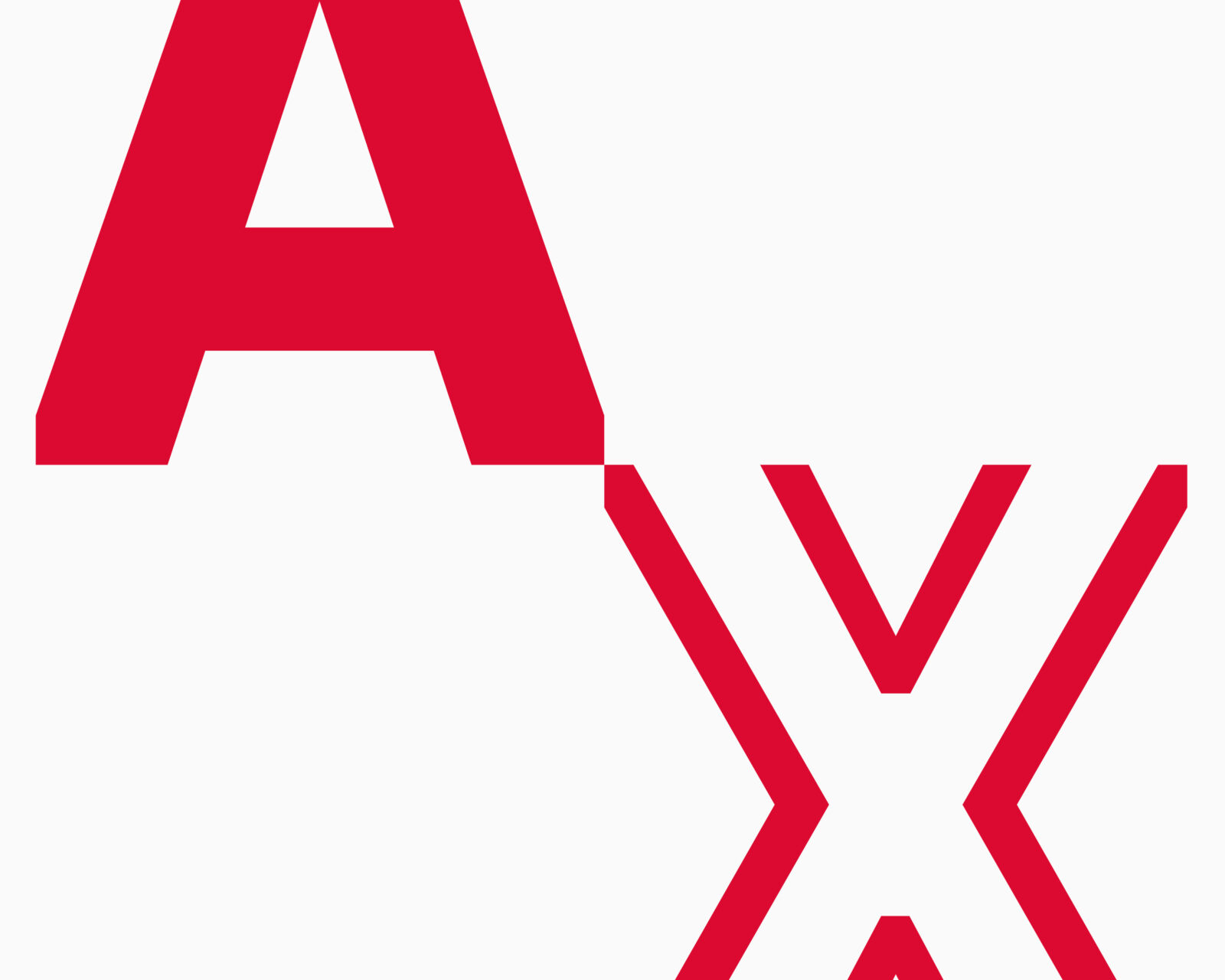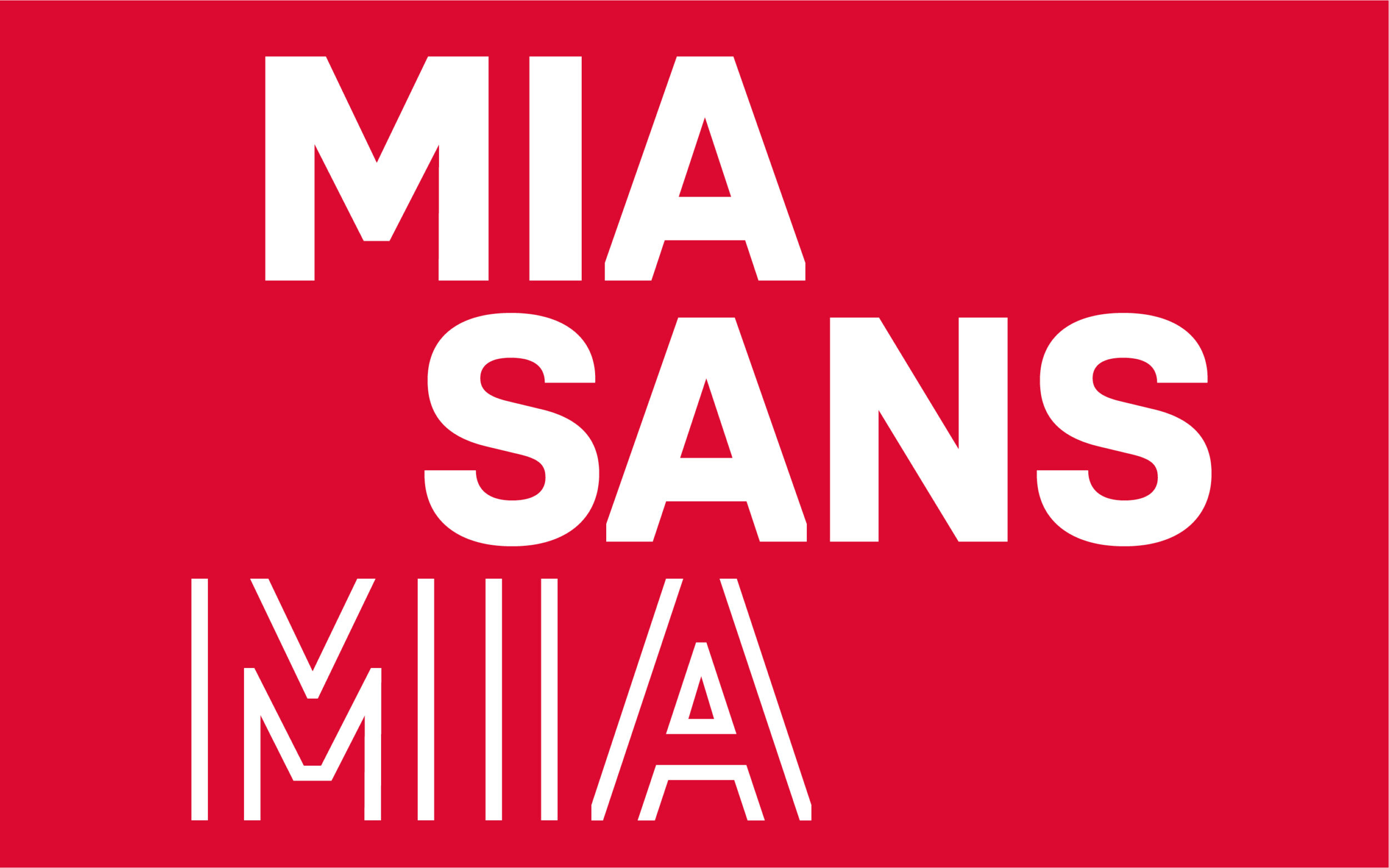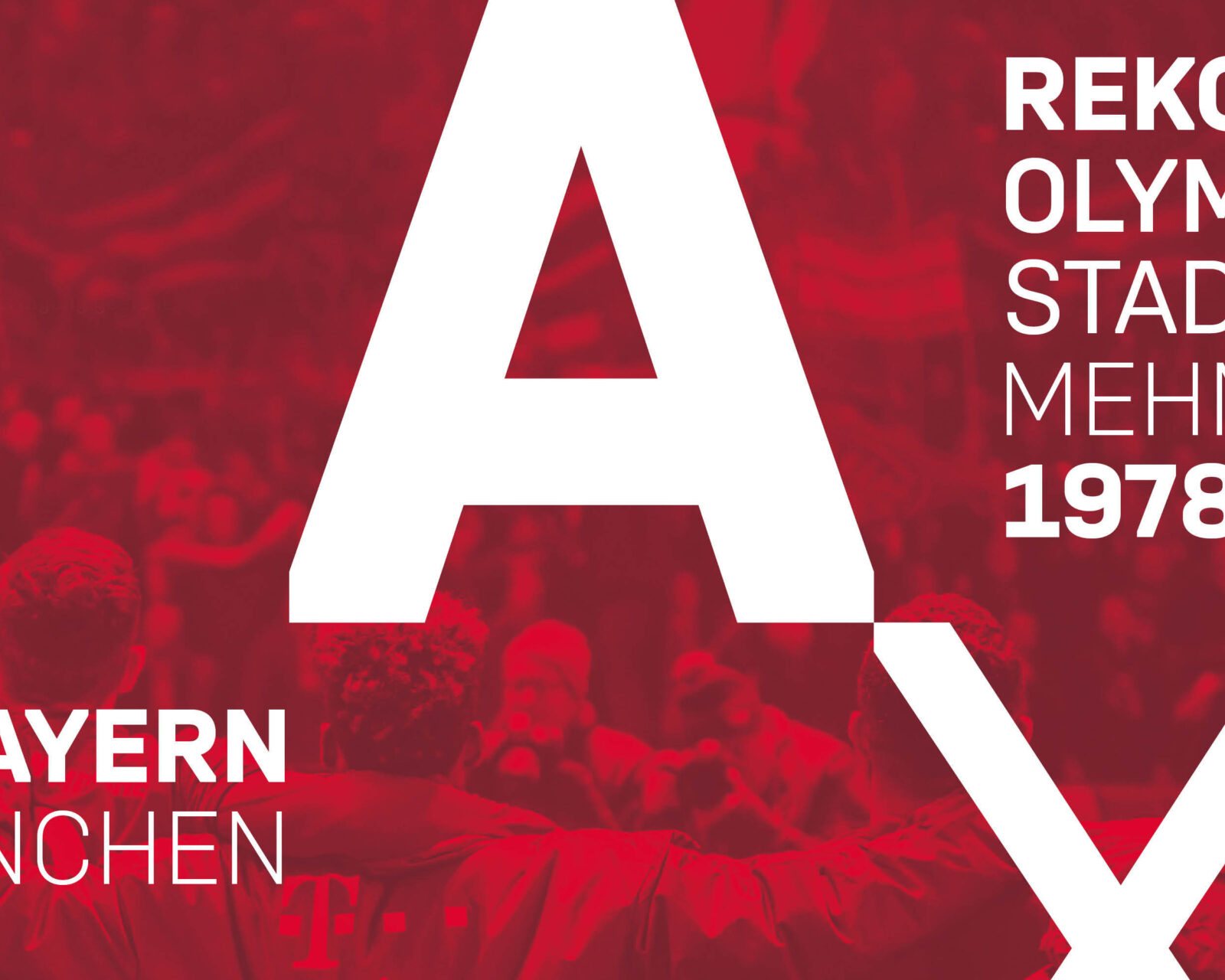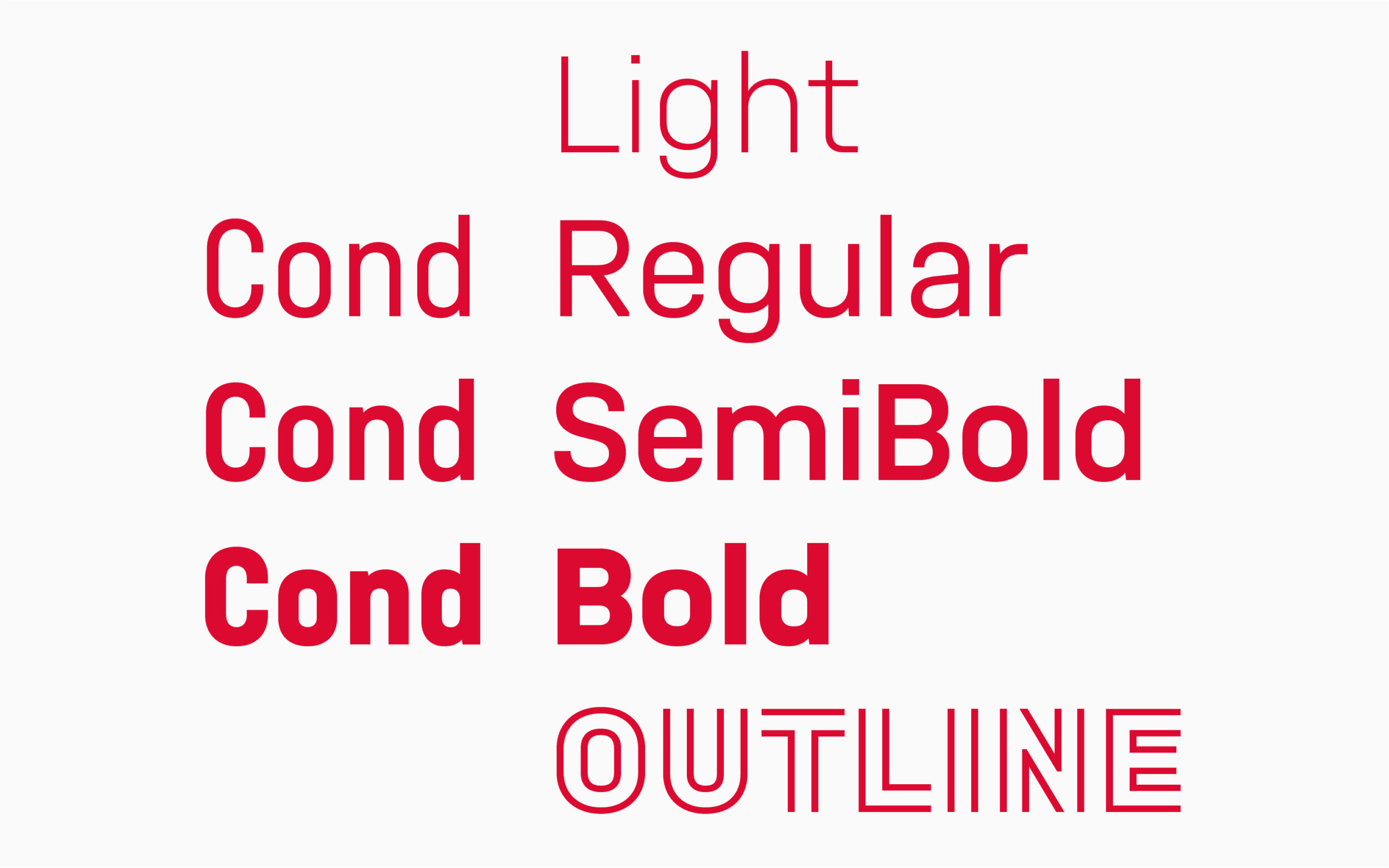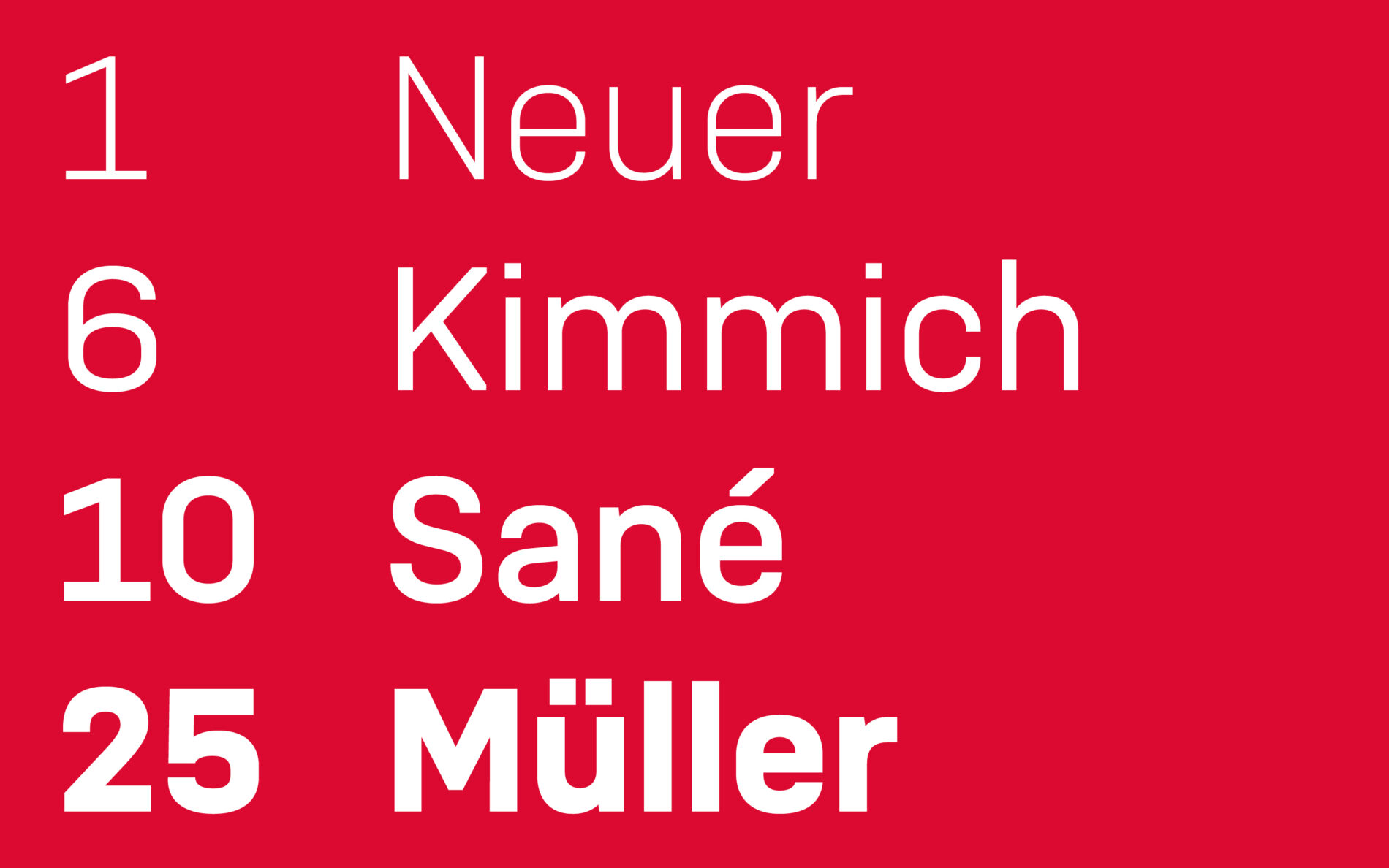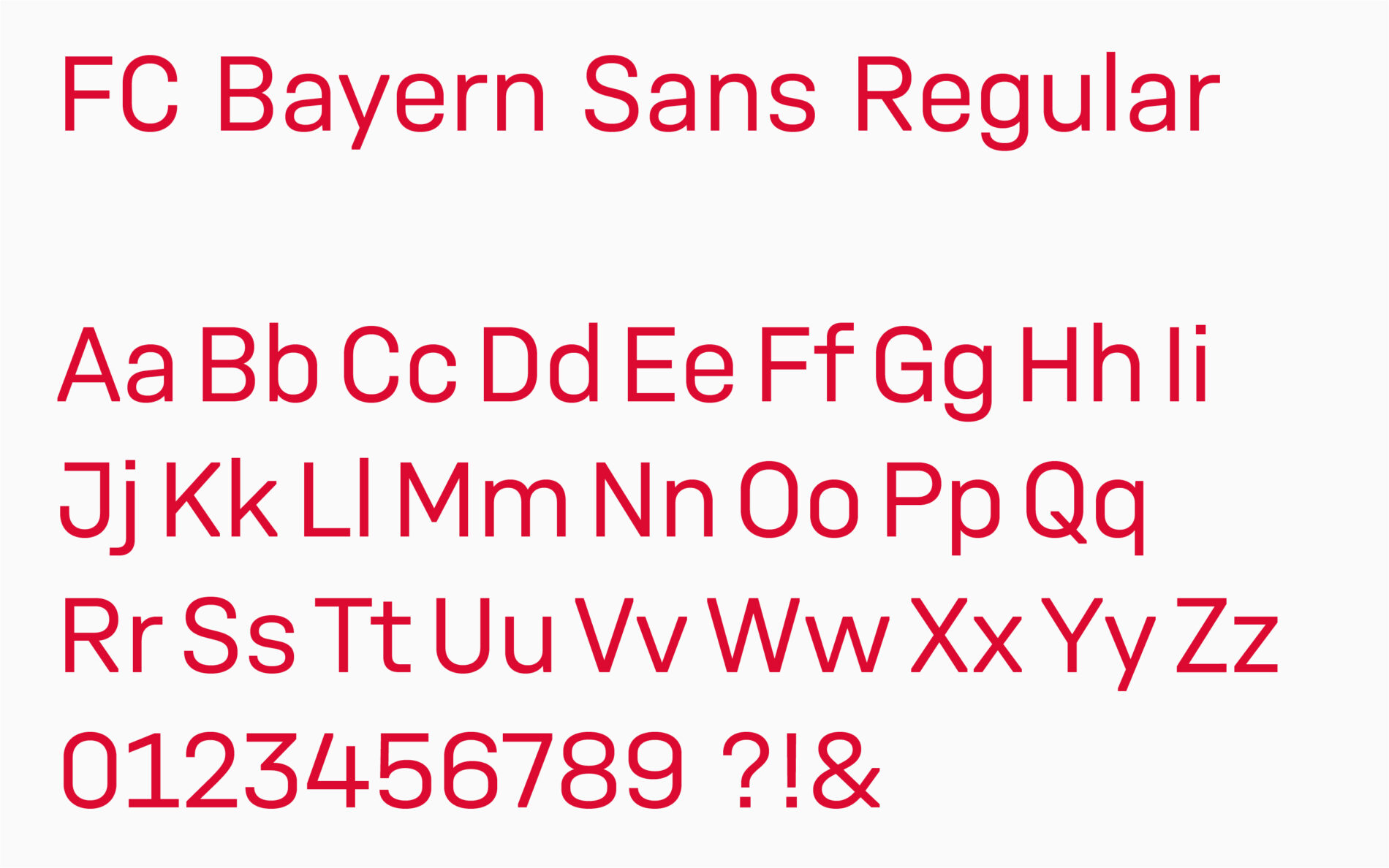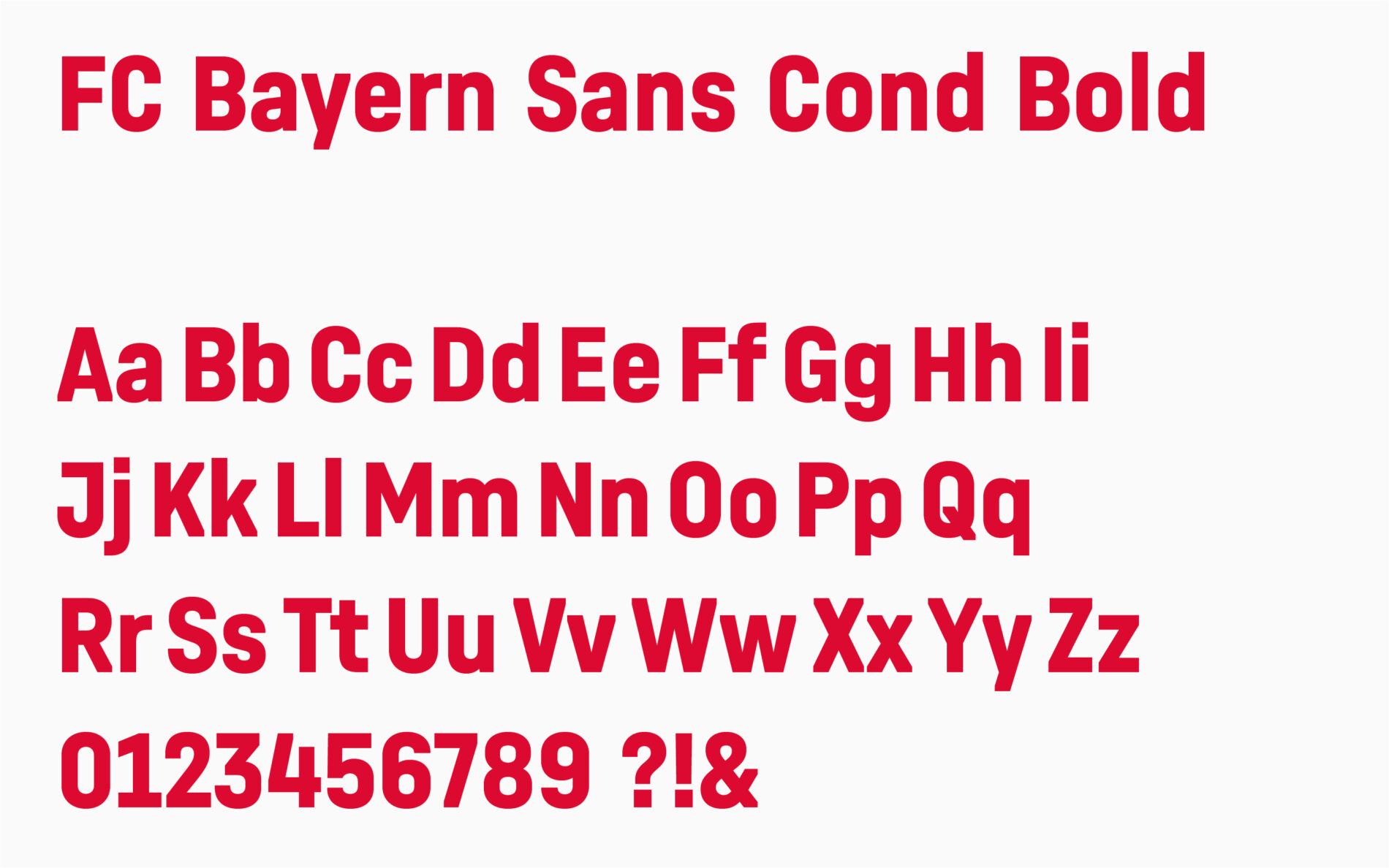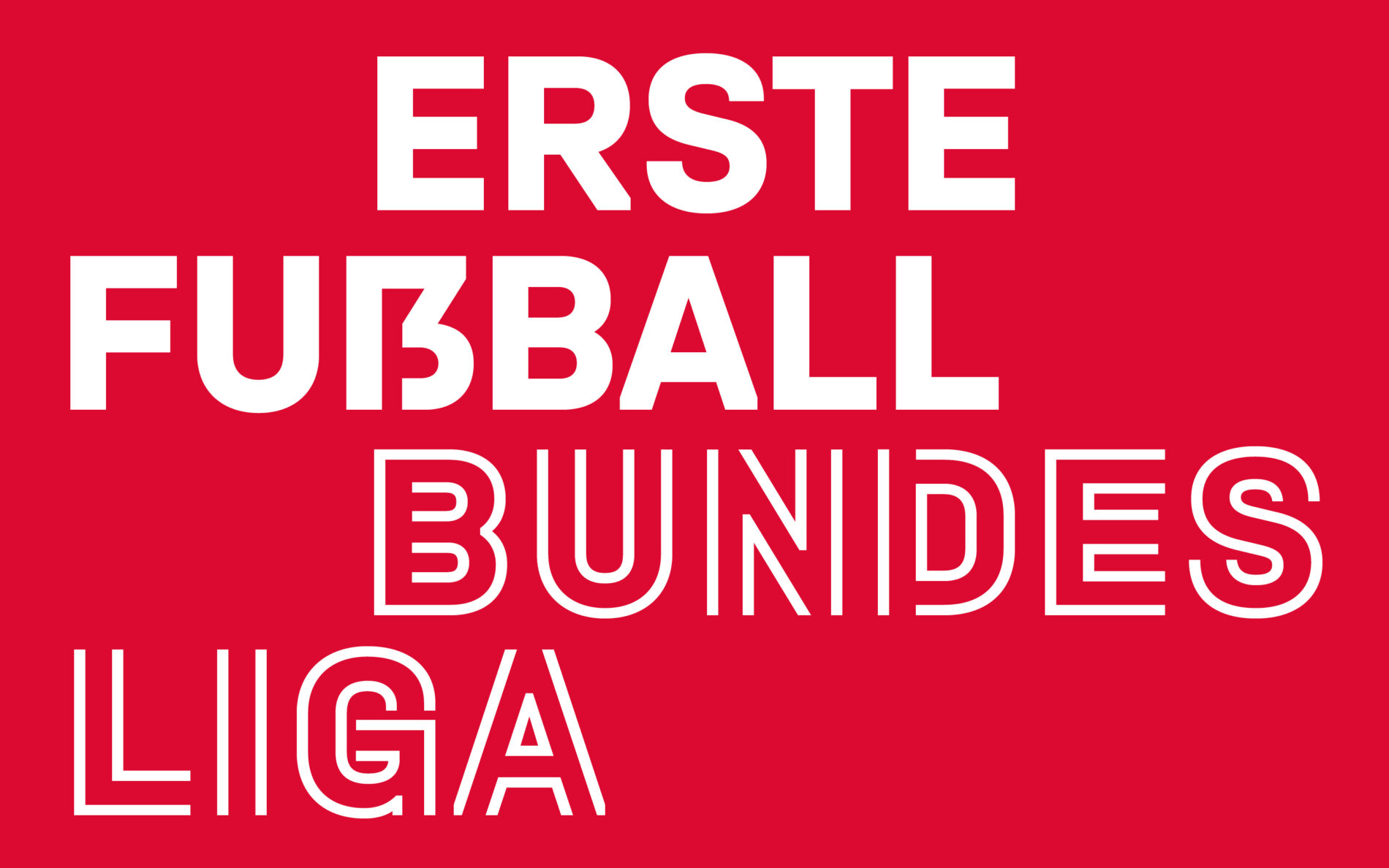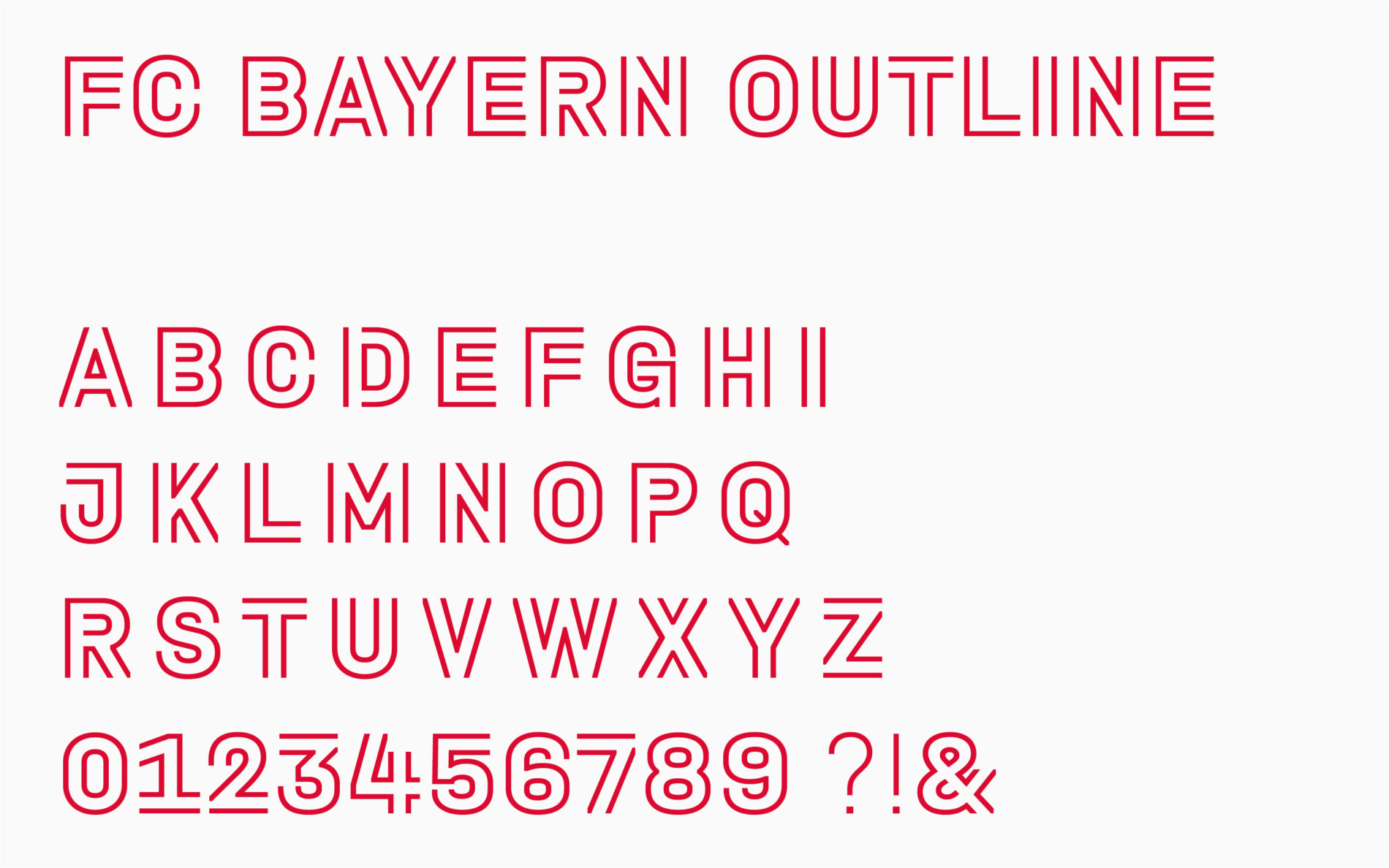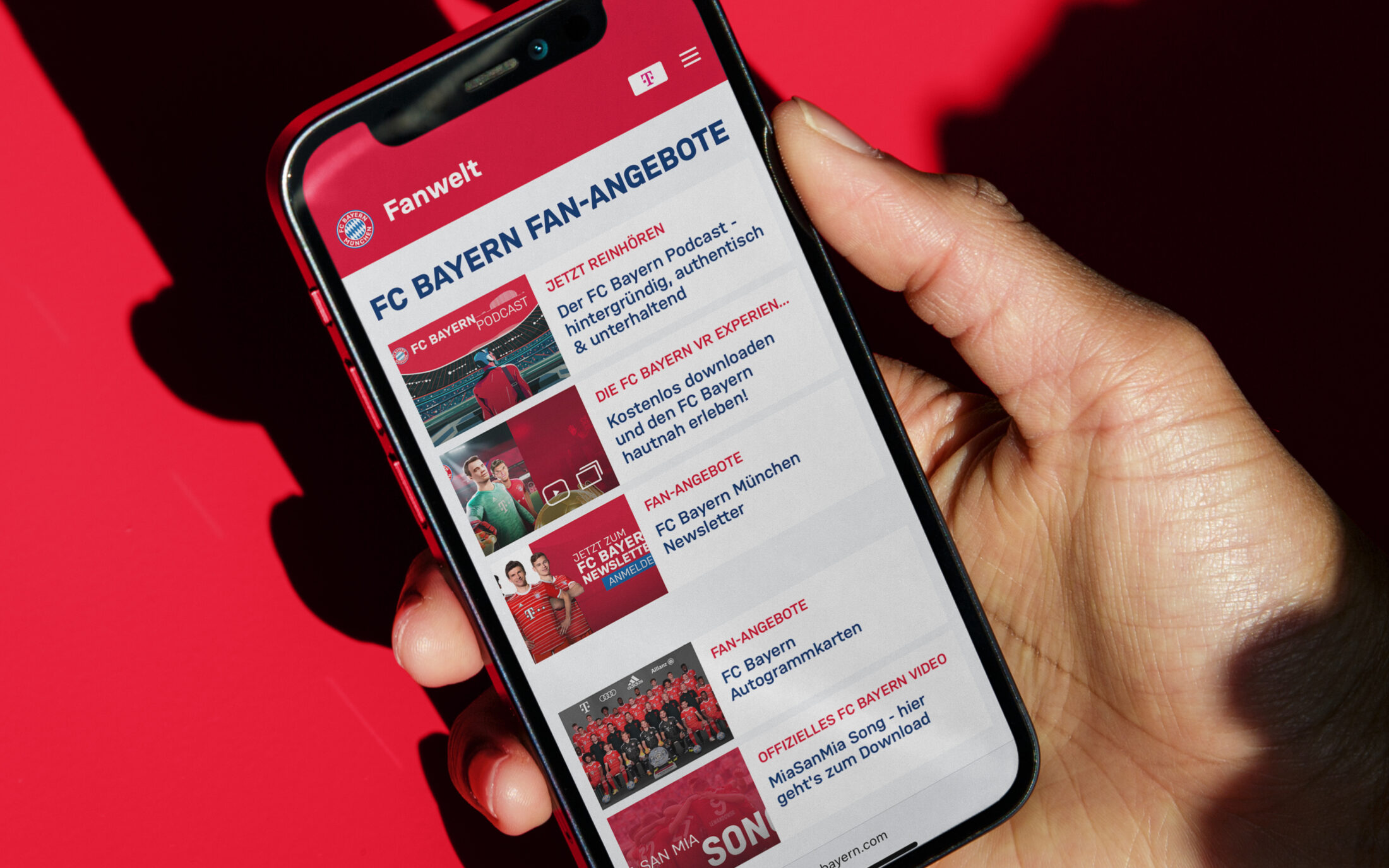
FC Bayern Sans
Interbrand Cologne had a clear vision for modernising the look of one of the most famous football clubs. We helped to complete the new brand identity for FC Bayern München with custom type.
Seeking to inspire with success, FC Bayern München has always defined itself through its traditional roots and international ambitions. Their guiding principle “tradition meets the modern era”, as Head of Brand Management Philipp Mokrohs points out, creates “two worlds that collide, becoming tangible in tonality, contrasting imagery and a clashing typography”.
With this new positioning, the redesign convinces with an optimised logo, a newly-developed typeface, contrasting visual worlds and a clear design concept. Today FC Bayern Sans features seven styles from light to bold plus condensed. For forceful headlines, we added an outline variant and there are more ideas to come.